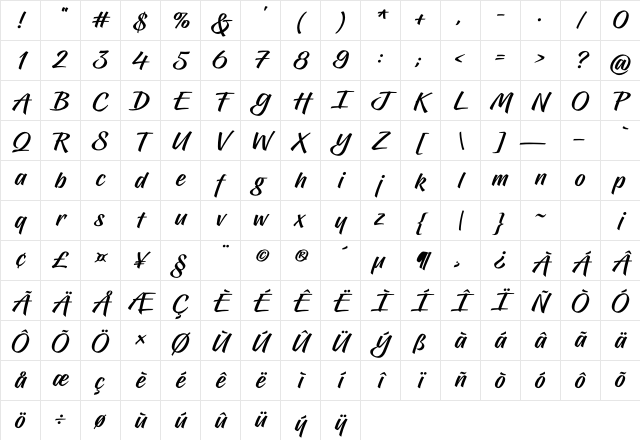
Hughs is a composed and adaptable typeface that performs quietly and consistently across a wide range of design contexts.
Pro Tip: Use Hughs in both headline and body roles to test its range before committing to a single application.